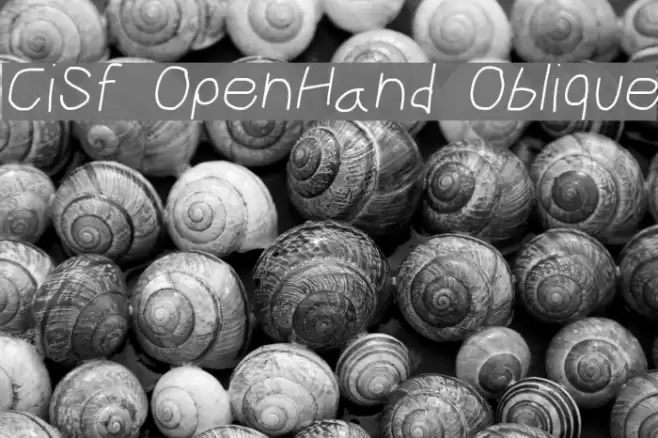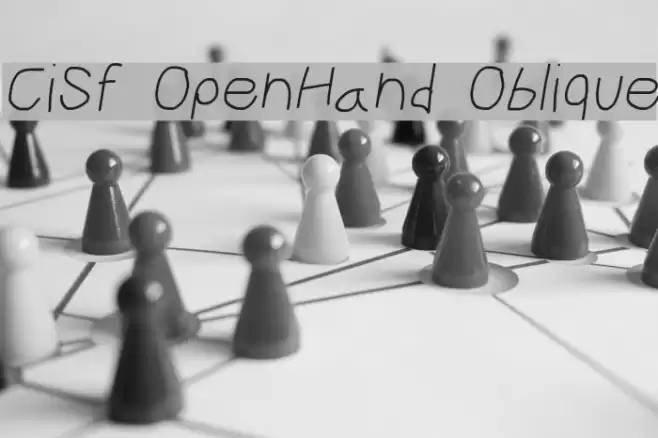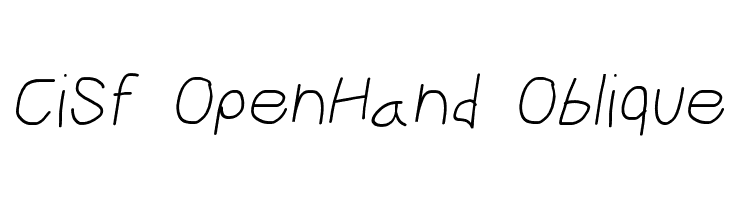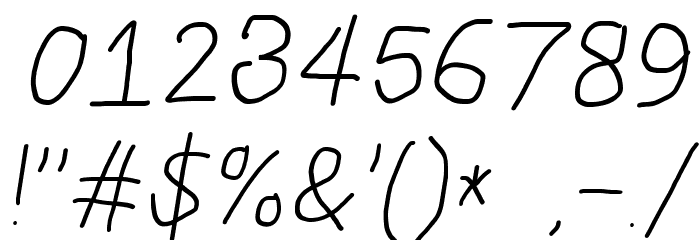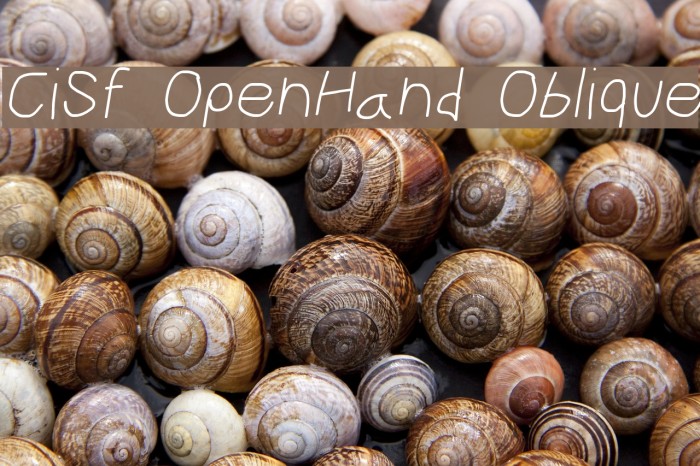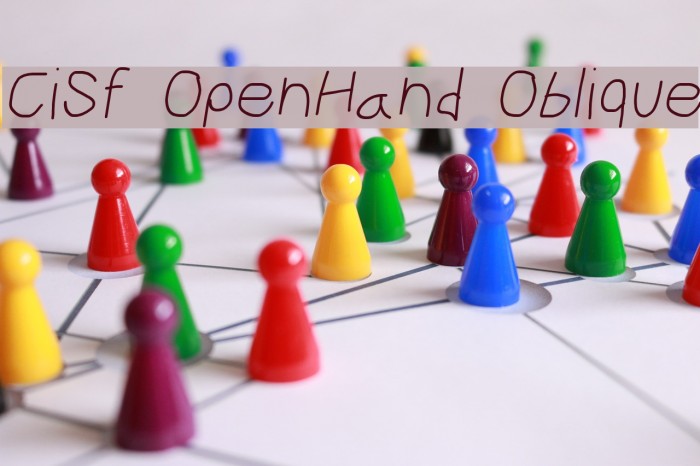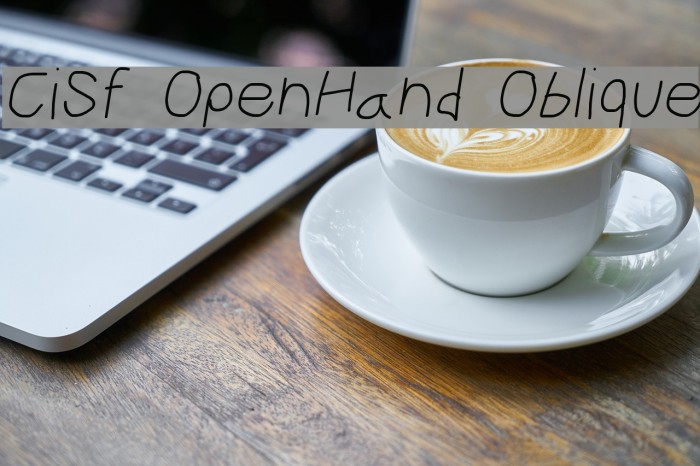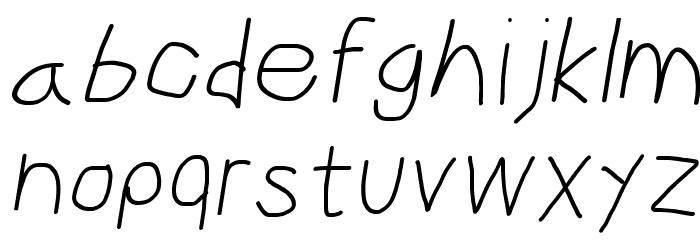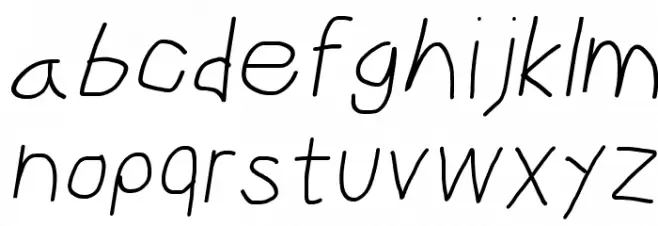
CiSf OpenHand Oblique Font
CiSf OpenHand Oblique Description
This font features a casual, handwritten style with a slight oblique slant, giving it a dynamic and informal appearance. The characters are crafted with a consistent stroke width, providing a uniform look across both uppercase and lowercase letters. The numerals and special characters maintain the same handwritten aesthetic, ensuring cohesion throughout the font set. The overall design is approachable and friendly, making it suitable for projects that require a personal touch. Its legibility is enhanced by the clear distinction between each character, despite the playful nature of the strokes.
A casual, handwritten font with an oblique slant and consistent stroke width from Handwritten fonts.
- Proposed Projects: Ideal for personal invitations, greeting cards, casual branding, and social media graphics.
- Overall Style: Casual
- Use Case: Logos, Invitations, Social Media